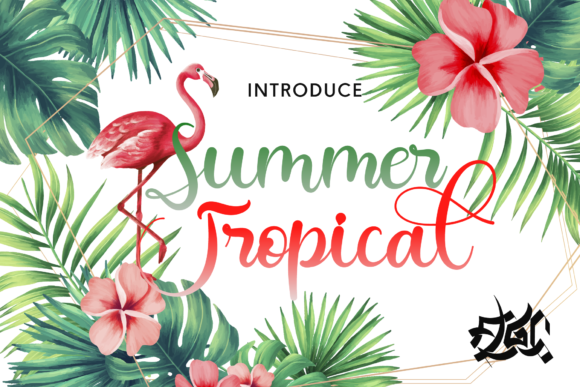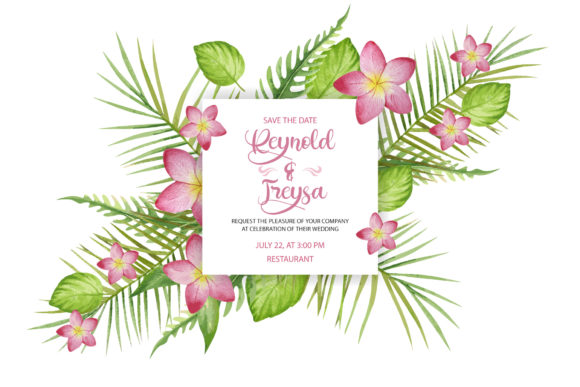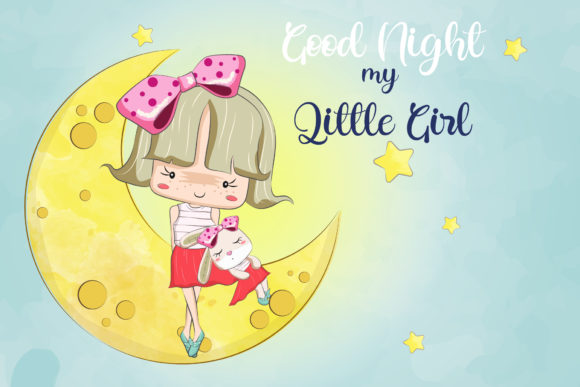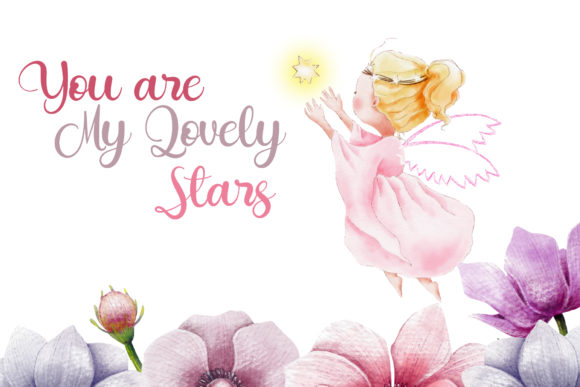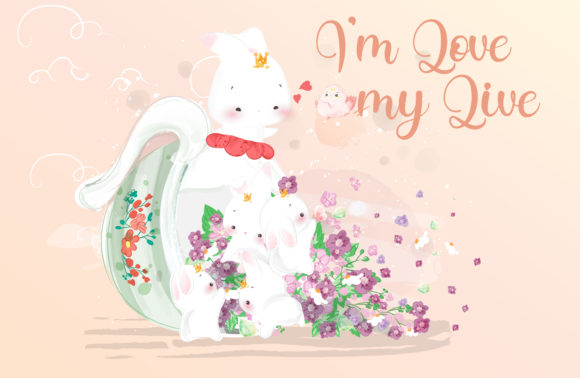
Summer Tropical Font
About Summer Tropical Font
Feeling tropical? Summer Tropical is a striking and vibrant handwritten font with a lovely twist. Get inspired by its bold swashes.